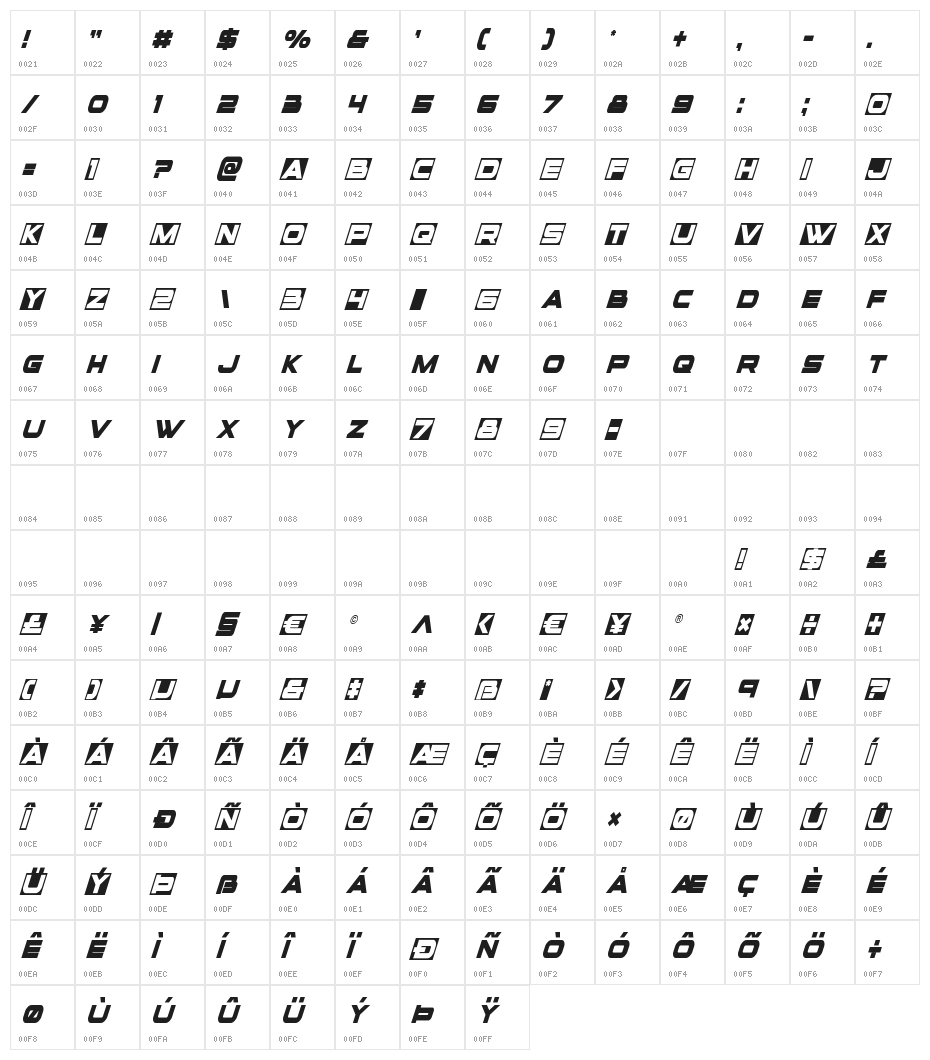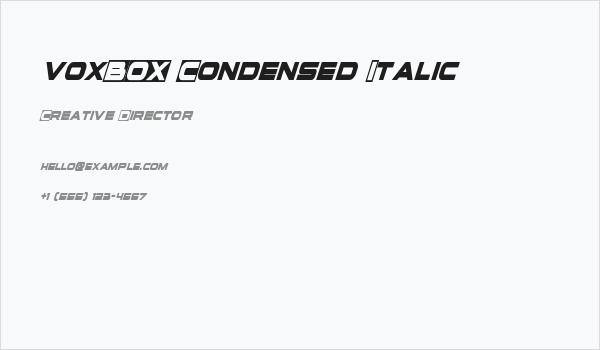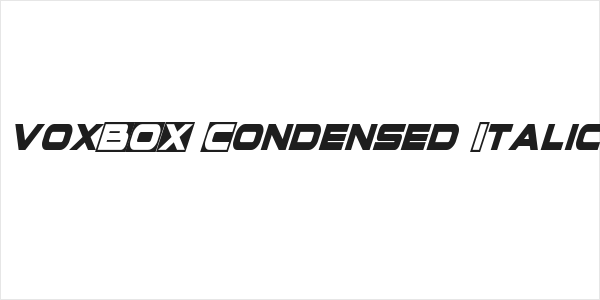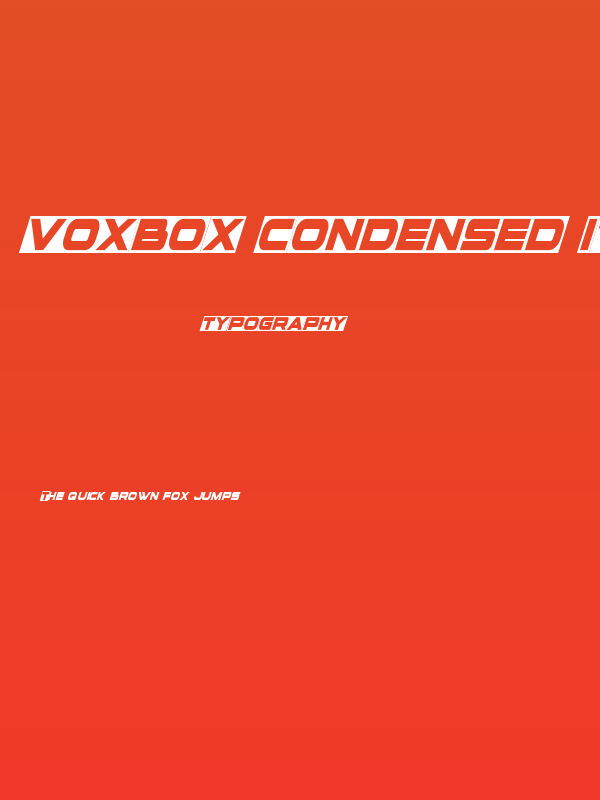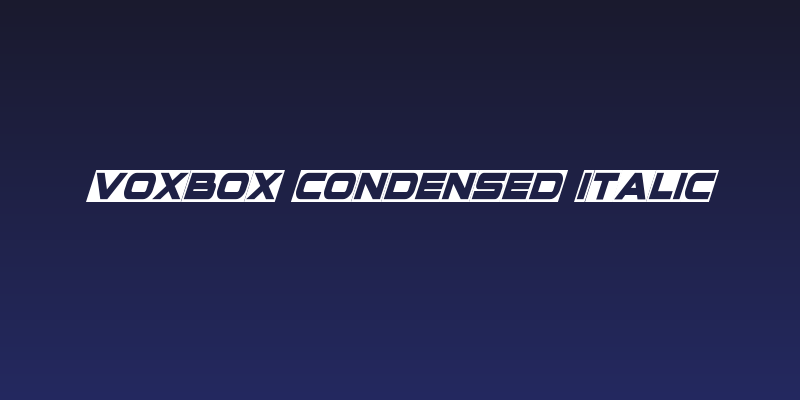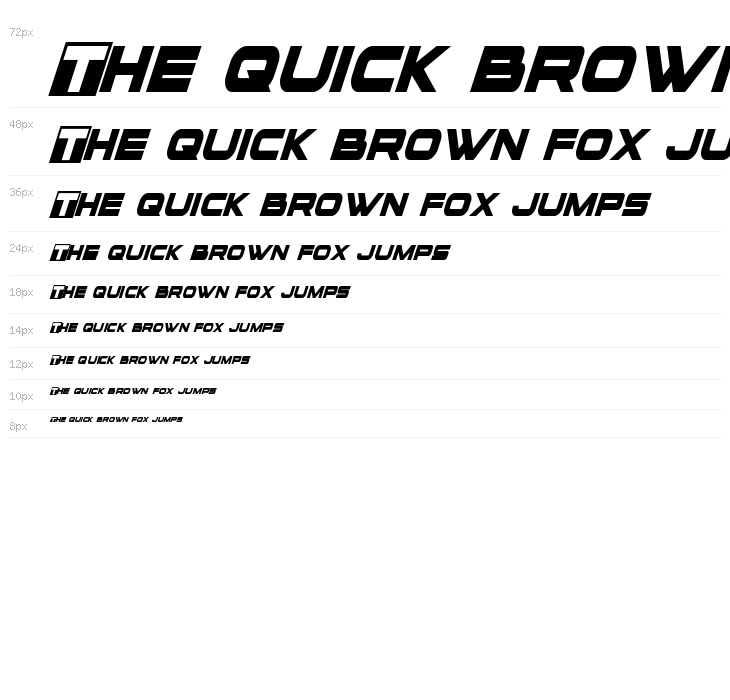
voxBOX Condensed Italic Font
voxBOX Condensed Italic Description
This font features a bold, italicized style with a condensed width, creating a dynamic and modern appearance. The uppercase letters are angular and sharp, with a forward-leaning slant that adds a sense of motion and urgency. The lowercase letters maintain the same slant and boldness, ensuring consistency across the typeface. Numbers are equally bold and slanted, matching the overall aesthetic. Special characters are designed to complement the letters and numbers, maintaining the same angular and italicized style. The font's condensed nature allows for efficient use of space, making it suitable for headlines and impactful text displays.
| Proposed Projects | Ideal for sports branding, dynamic posters, modern advertisements, and impactful headlines. |